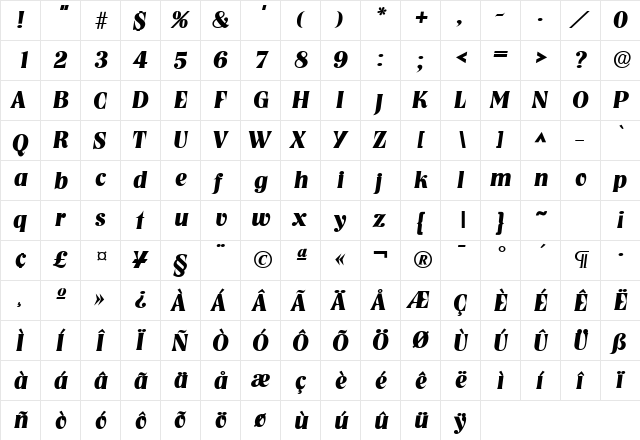
Tennessee Heavy SF Bold Italic
Design Context for Tennessee Heavy SF Typeface
Tennessee Heavy SF offers clean, dependable letterforms without strong stylistic allegiance, making it a practical choice for designers who need flexibility. The dynamic lean of this cut emphasises speed and emphasis in any layout. The heavy weight commands attention and anchors typographic hierarchies.
Pro Tip: Use Tennessee Heavy SF for emphasis, pull quotes, and subheadings where its slanted energy can add rhythm to the layout.